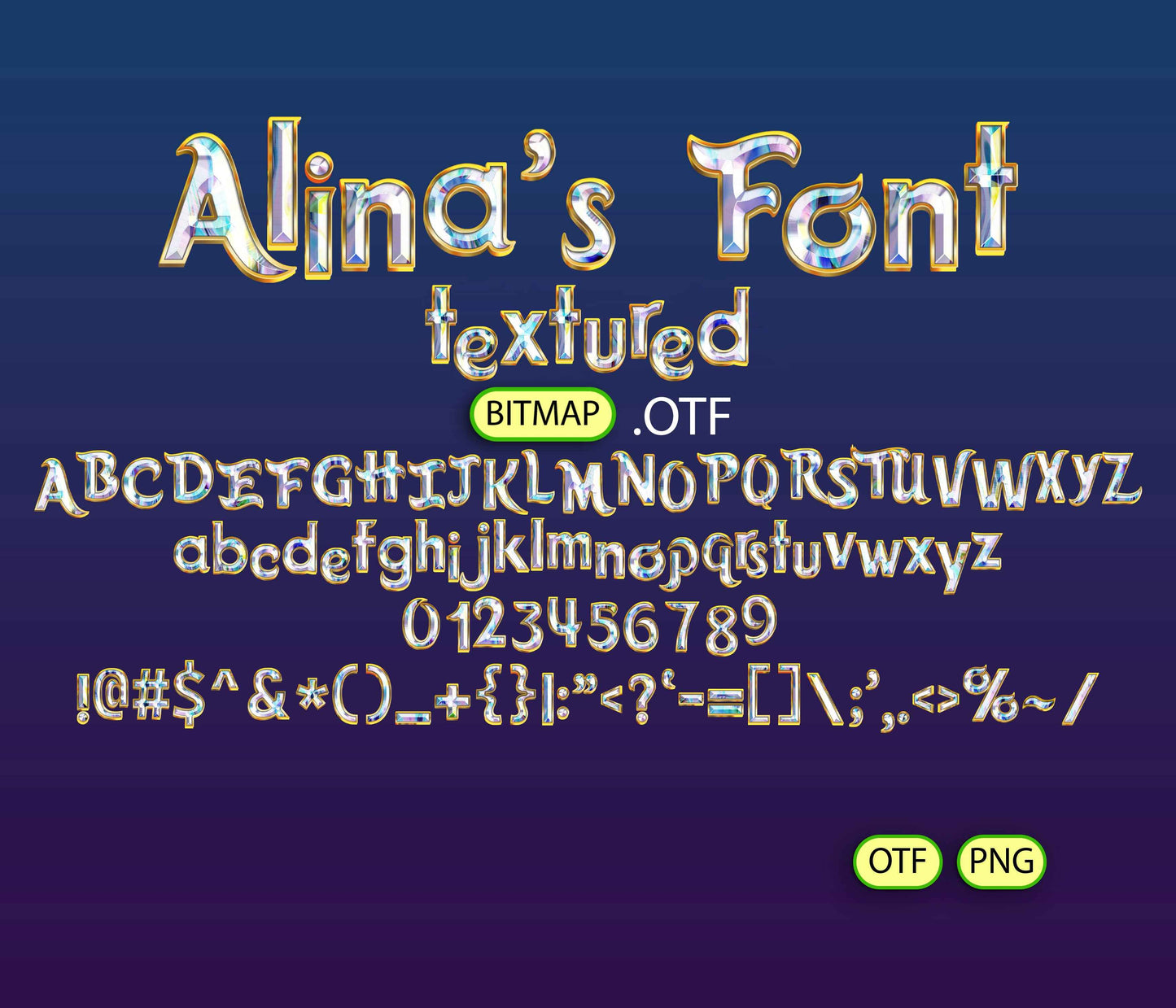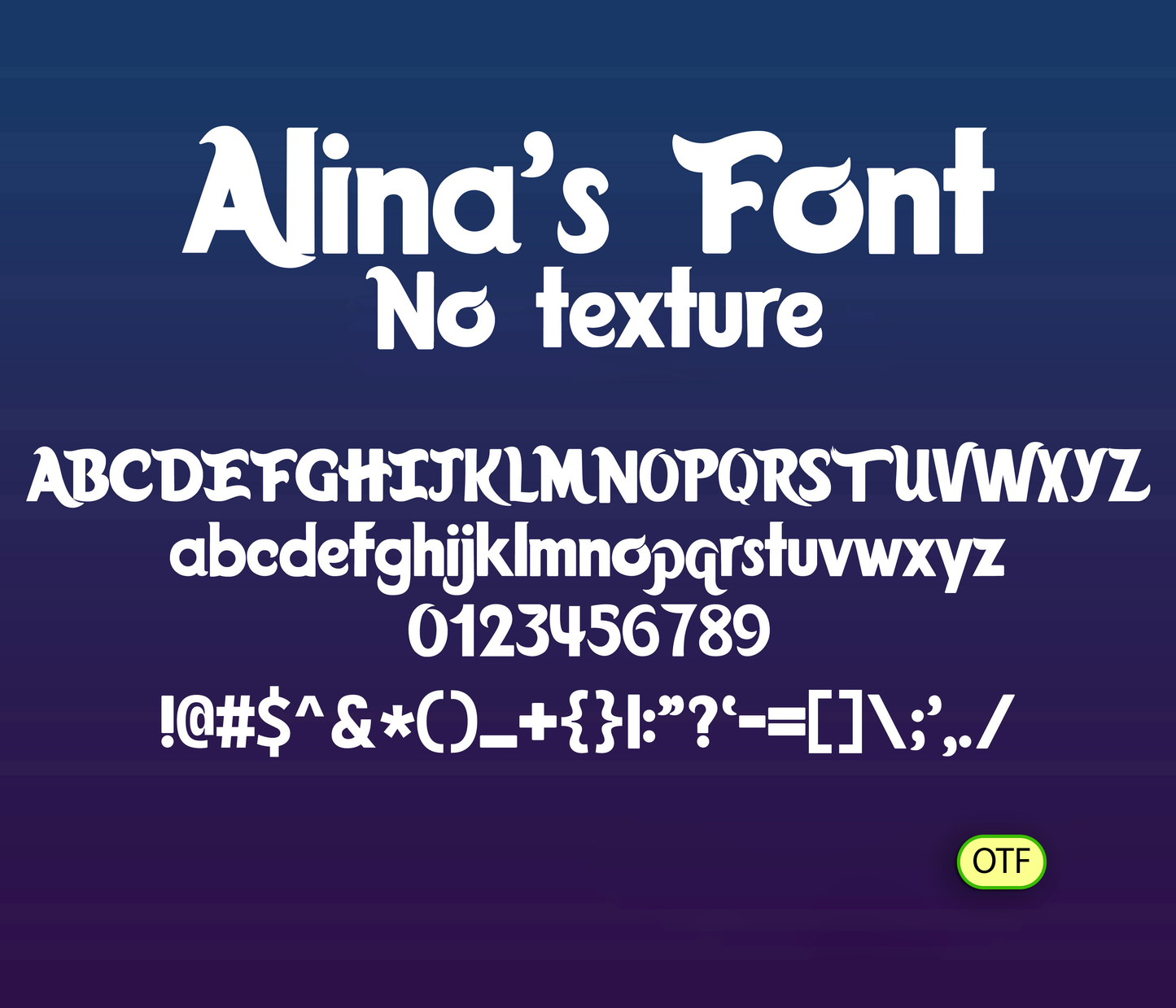
Whimsy Wonders Band Font Textured
Dive into Joy with the Whimsy Wonders-Inspired Font
Discover a world of vibrant creativity with our Whimsy Wonders-inspired font, Textured Whimsy Wonders Typeface. Immerse yourself in a typeface infused with the whimsical charm and lively spirit of the Whimsy Wonders universe. Perfect for birthday invitations, cake toppers, t-shirt prints, or Cricut crafts, this font spreads happiness and imaginative flair. Each letter is a dance of colors and shapes, capturing the heartwarming magic that makes Whimsy Wonders a cherished theme for all ages.
What Font is Whimsy Wonders Font?
Handcrafted with meticulous attention to detail, it replicates the bubbly, bold, and colorful typography seen in the Whimsy Wonders universe. This extensive character set includes numbers and special characters, ensuring a true replica of the iconic original. It's a font that speaks to your heart, urging you to sing, dance, and embrace your true colors.
What Can You Do With Whimsy Wonders Font?
Our Whimsy Wonders font thrives in versatility and customization:
- Party Invitations: Joyful and colorful invites.
- Apparel Design: Fun t-shirt prints.
- Home Decor: Quirky quotes and wall art.
- Event Supplies: Vibrant banners and signage.
- Social Media: Standout posts and stories.
- Educational Materials: Fun learning resources.
- Business Branding: Cheerful brand identity.
- Merchandise: Unique fan merchandise.
- Digital Content: Playful typography for all media.
- Textured and FREE No-Textured Variants: Choose between a lively textured look, perfect for vibrant designs, or a sleek non-textured version for a clean, versatile appearance.
- Extensive Character Set: With its comprehensive range of characters, your creativity is limitless.